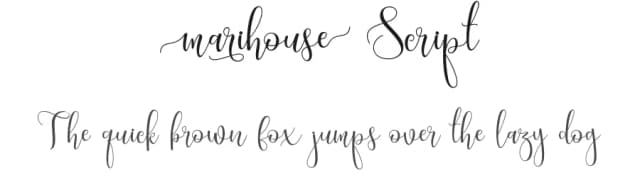
Marihouse Script by Lettersams is a flowing calligraphic typeface that brings dynamic movement and visual elegance to designs through its refined, expressive sweeping letterforms. Available in both Regular and Italic styles, this script typeface captures the authentic character and personality of hand-drawn penmanship while maintaining excellent digital clarity and versatility across projects of any scale.
This typeface excels in luxury applications and high-end product design. From artisanal cosmetics labels and boutique perfume packaging to sophisticated wedding invitation suites and branded stationery collections, Marihouse Script provides the visual refinement that defines premium design. Designers also turn to it for editorial work including book cover design, magazine mastheads, and distinctive title treatment, as well as personalized signature designs that add authenticity to certificates, diplomas, and formal business documents.
The stroke variations and graceful letterform spacing make it well-suited for specialty applications like restaurant menus, boutique wine labels, and artisanal food packaging. Whether you're creating wedding stationery, establishing brand identities, designing product labels for specialty retail, or crafting sophisticated typography for lifestyle publications and hospitality venues, Marihouse Script delivers the polished aesthetic needed for discerning clients. Discover Marihouse Script on Creative Fabrica and add this calligraphic font to your design library.
Marihouse Script Font is a script font that shines as a display or heading face. Pair it with a clean sans-serif or serif font for body text β the contrast creates a clear hierarchy while the two styles stay balanced and easy to read.
Marihouse Script Font
by Lettersams